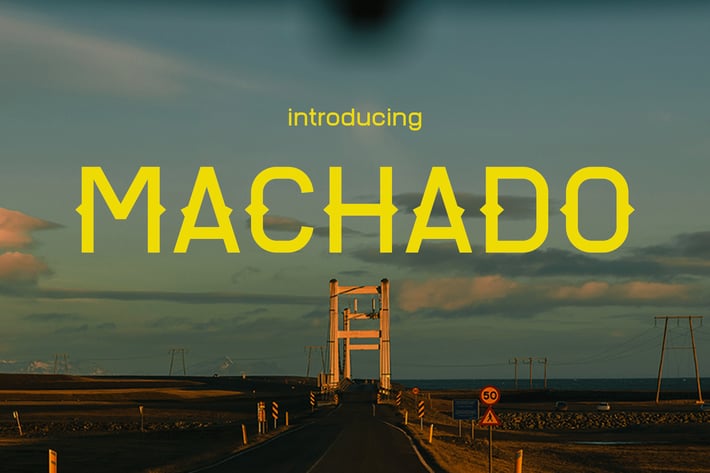
Machado - A Retro Blend of Elegance Font
Machado
Machado is a retro-inspired geometric display typeface crafted for bold visual communication with a subtle vintage rhythm. Its rounded letterforms, monoline stroke weight, and gentle proportions offer a balanced tone that’s both expressive and approachable—ideal for branding that needs to evoke nostalgia without losing modern clarity.
Designed with tight letter spacing and upright posture, Machado feels solid yet friendly, making it great for editorial titles, sports designs, signage, and vintage-inspired posters. The font carries a distinct character without overwhelming your layout.
From boxing posters to bridge photography titles and retro car ads, Machado delivers striking impact with a warm, grounded aesthetic. Its rounded yet structured tone evokes confidence, making it great for physical product branding, promotional packaging, editorial layout, and storefront signs.
If you're designing for a brand that needs a voice both nostalgic and fresh—Machado will help you land that impression.
Key Features
Why Designers Choose Machado:
- Geometric construction with a rounded retro vibe
- Bold yet minimal—ideal for logos, packaging, and urban branding
- Great readability for both print and screen
- Adds structure and personality to short copy and titles
Use Cases Include:
- Editorial & lifestyle magazine headers
- Vintage product branding (e.g., antiques, boxing gear, tourism)
- Sports or fitness content
- Signboards and large display type